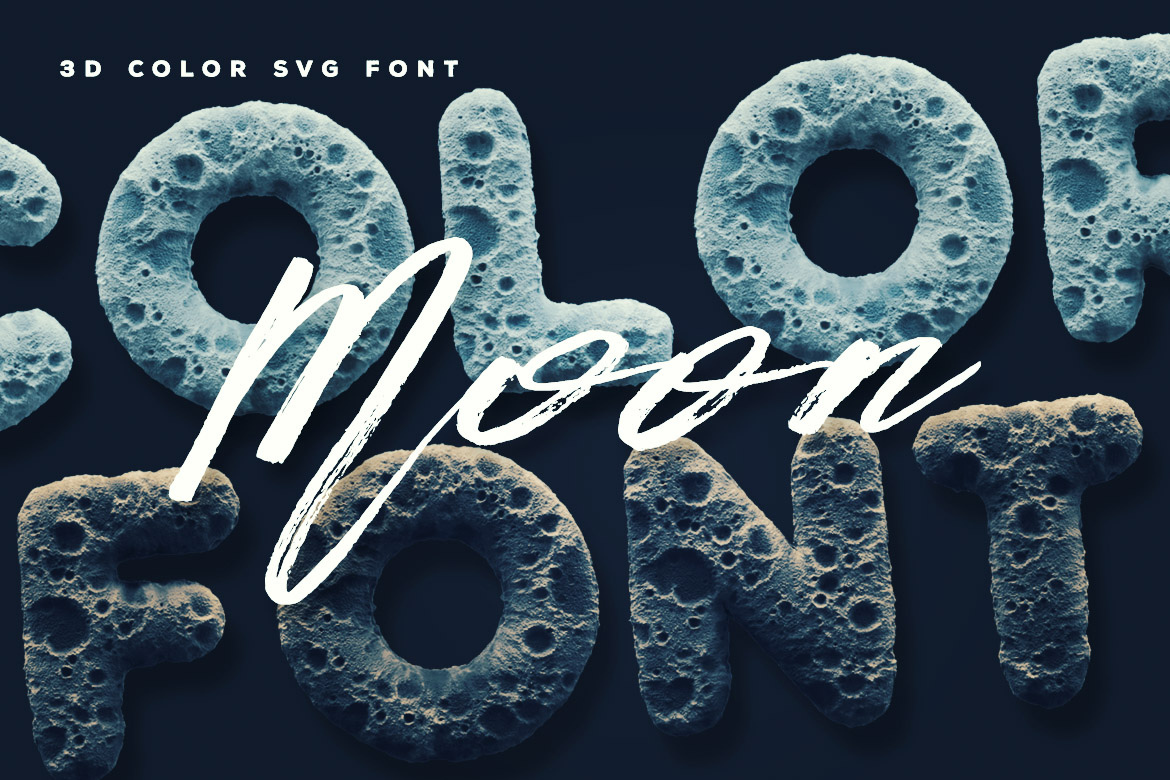
Moon Color Font
Moon Color Font is perfect for mystical nighttime branding, lunar celebration events, celestial-themed marketing, magical moonlight campaigns, romantic evening venues, astronomical education materials, nocturnal lifestyle promotions, and ethereal lunar communications.
What makes Moon Color Font exciting is its celestial luminosity that embodies the mystical beauty and ethereal glow of moonlight with lunar authenticity and nocturnal elegance. The font features luminous letterforms with moon-inspired curves and celestial character variations that evoke moonbeams, starlit nights, and the enchanting mystery of lunar cycles and nocturnal magic. Its distinctive lunar styling and celestial appeal communicate mystery, romance, and ethereal beauty, making every message feel illuminated by moonlight and touched by the magical glow of celestial wonder and lunar enchantment.
The Moon Color Font family includes regular weight with uppercase and lowercase letters, numerals, punctuation marks, and special characters. Premium versions often feature luminous alternates and celestial elements that enhance the mystical, lunar aesthetic perfect for nighttime and astronomical applications.
This ethereal celestial typeface brings instant magic and lunar credibility to any moon-themed project. Moon Color Font Free Download delivers exceptional results for mystical businesses and astronomical organizations seeking to communicate lunar beauty, celestial mystery, and nocturnal enchantment to stargazing enthusiasts and mystical audiences.
The luminous character of Moon Color Font makes it particularly valuable for astronomy centers, mystical event planners, and nocturnal entertainment venues. Its excellent visibility ensures lunar messaging and celestial communications capture attention while maintaining the distinctive moonlit aesthetic that appeals to audiences seeking authentic astronomical experiences and lunar mystique.
Celestial entertainment marketers appreciate how Moon Color Font effortlessly conveys lunar authenticity and mystical beauty. The font's luminous proportions and celestial details create enchanting brand materials that establish connections with audiences who value astronomical wonder, lunar cycles, and the ethereal beauty of moonlit nights and celestial phenomena.
The versatile luminosity of this typeface extends to romantic venues, astronomical education, and mystical services where lunar authenticity enhances celestial credibility and nocturnal appeal. Moon Color Font Free Download provides creative professionals with an essential tool for developing memorable, celestial-driven designs that resonate with audiences who embrace lunar mystery, astronomical beauty, and the colorful glow of moonlight in their nighttime and mystical experiences.